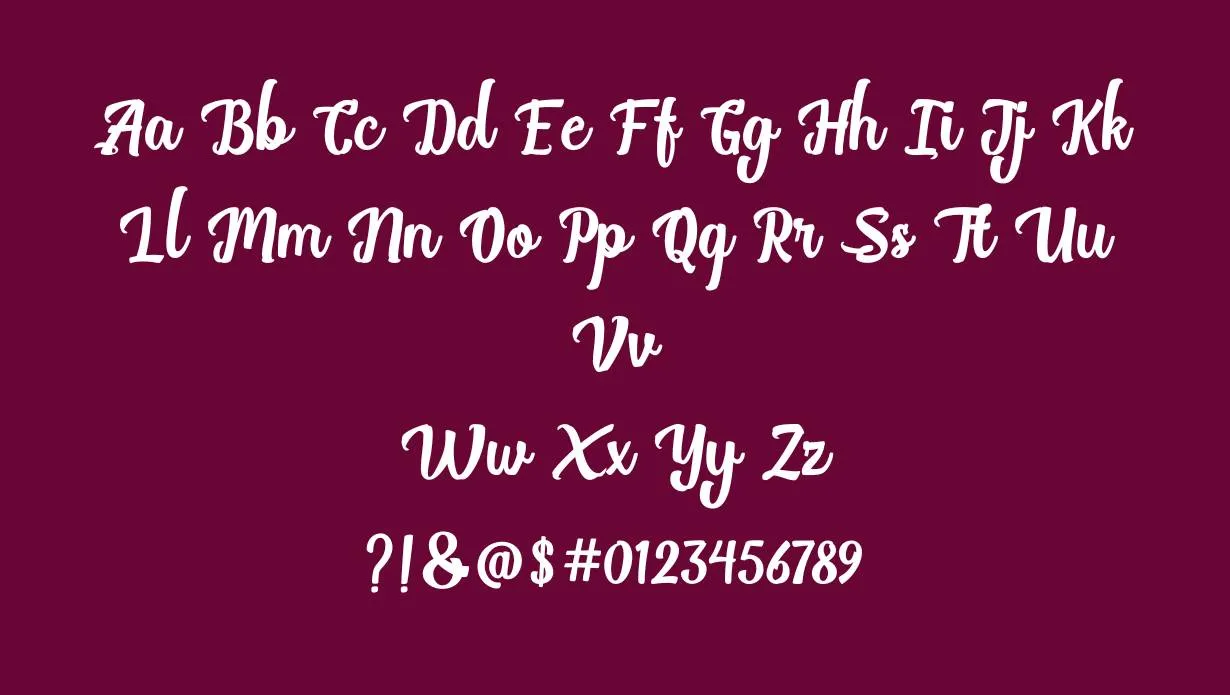
Break Stones Pro Font embodies a sense of strength and resilience. With its bold and rugged letters, this font is perfect for projects that want to convey a sense of durability and endurance. Use it for outdoor adventure posters, sports events, or any design where a connection with toughness is desired.
The technical details of Break Stones Pro Font include a heavy weight and slightly condensed width, creating an overall appearance that adds a sense of rugged power.
| Name | Break Stones Pro Font |
| Designer | Vintage |
Break Stones Pro Font is crafted for projects that want to make a bold and enduring statement, infusing a sense of toughness into their designs.